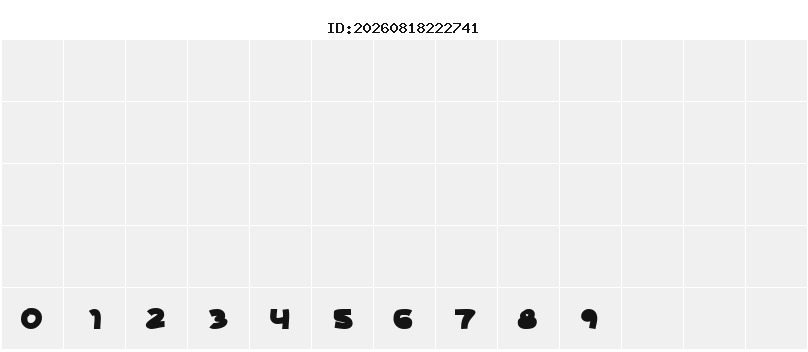
Sinaa Preview
• Font Name: Sinaa
• Full Font Name: Sinaa
• PostScript Name: Sinaa
• Character Count: 245
About Sinaa.ttf
Sinaa.ttf is a modern, elegant sans-serif font designed for ultimate readability and visual harmony. Perfect for branding, headlines, web design, and print materials.